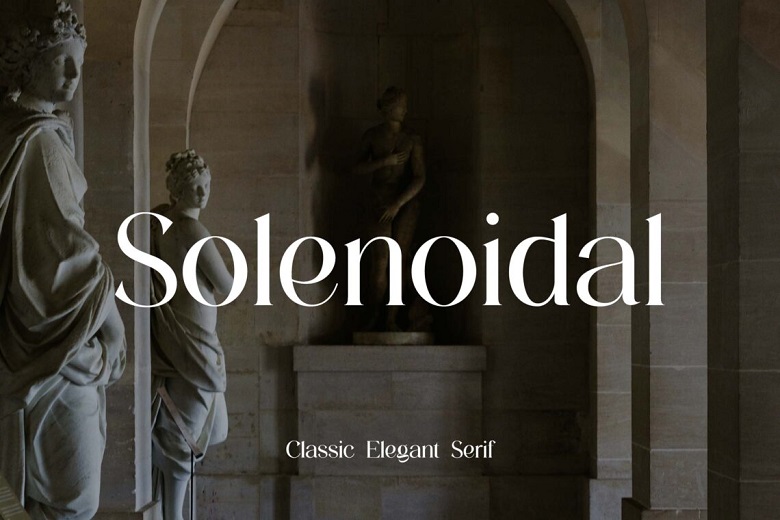
Solenoidal Font
Solenoidal is a classy elegant serif font that has been originally classified as a classic. The modern display font looks as if it possess the aesthetics of class, elegance, and style. This font is perfect for any types of projects including signature, stationery, logo, wedding, typography quotes, magazine or book covers, website headers, branding, and so on. Also, branding or the editorial design which concerns the fashion presented a male and female half.
Solenoidal Serif Font